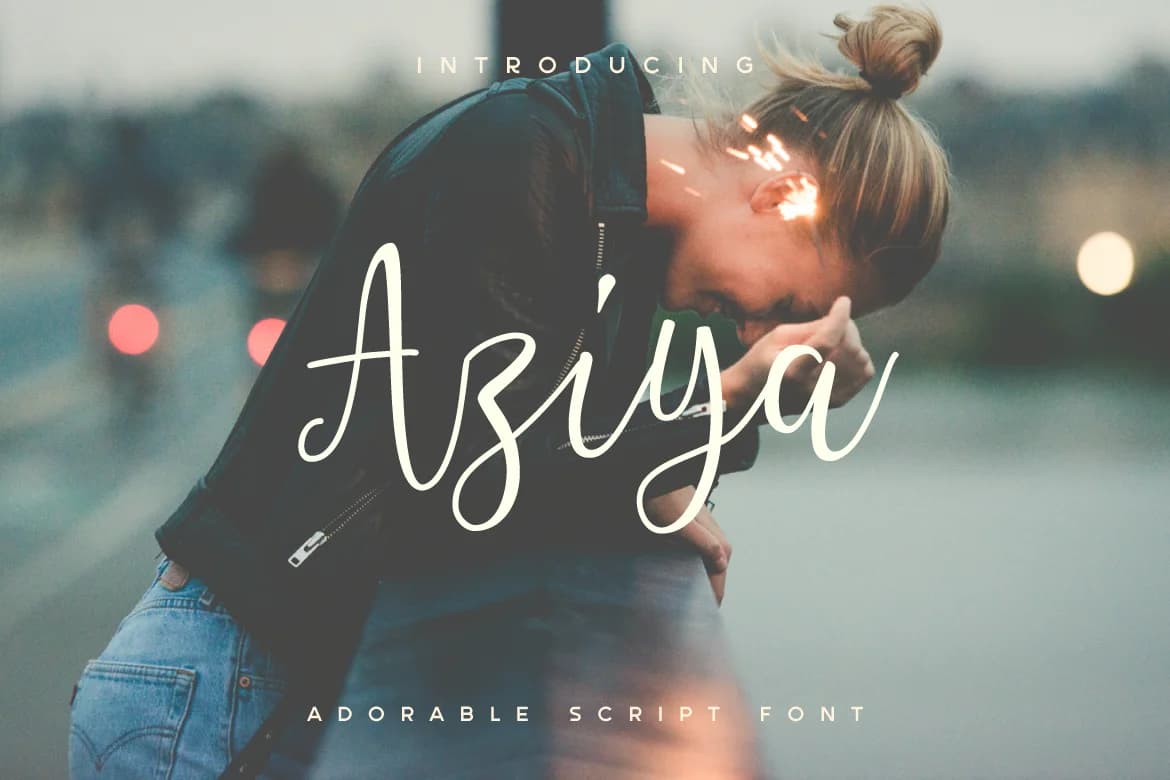
Aziya by Typia Nesia is a flowing calligraphy script that brings together contemporary style with romantic sensibility. The font features smooth, connected letterforms that evoke the quality of handwritten elegance without sacrificing readability, making it genuinely versatile for both modern and traditional design applications. This script font performs exceptionally well in projects where femininity and sophistication matter most. Consider using Aziya for high-end wedding invitation suites where couples want a personal, artisanal touch that speaks to their style. It works beautifully on Etsy product labels for creative businesses, think handmade cosmetics, jewelry, or specialty foods wanting to convey authentic craftsmanship. Boutique skincare and wellness packaging benefits significantly from its refined aesthetic, helping small brands compete with larger competitors through distinctive typography. DIY craft enthusiasts also appreciate the font's approachability, making it ideal for custom greeting cards, monogram designs, and personalized home dΓ©cor projects. The script's consistent weight and smooth flow provide strong visual impact whether scaled large for headers or used at moderate sizes for body text on elegant websites and invitations. Its character and charm make it an accessible choice for anyone seeking to add a contemporary yet timeless feel to their creative work. Get Aziya Font from Creative Fabrica to bring this refined calligraphy script into your design library.
Aziya Font is a script font that shines as a display or heading face. Pair it with a clean sans-serif or serif font for body text β the contrast creates a clear hierarchy while the two styles stay balanced and easy to read.
Aziya Font
by Typia Nesia